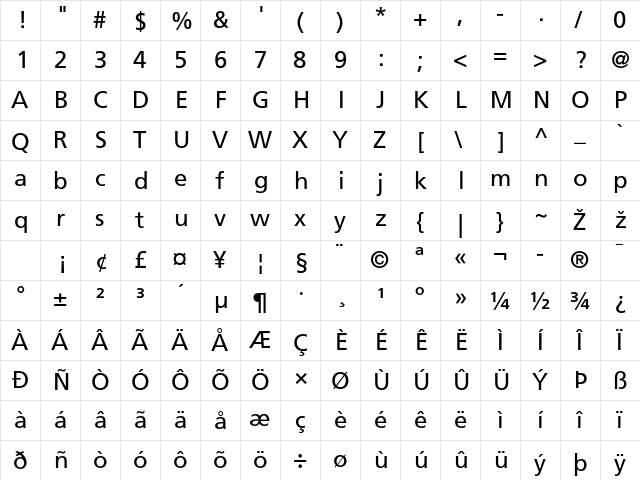
Frutiger LT 55 Roman Regular
| Designer | Adrian Frutiger |
Design Context for Frutiger LT 55 Roman Typeface
Frutiger LT 55 Roman takes a measured approach to typography — its balanced proportions and neutral character make it a reliable workhorse for both digital and print work. The delicate stroke weight brings airiness and refinement to layouts.